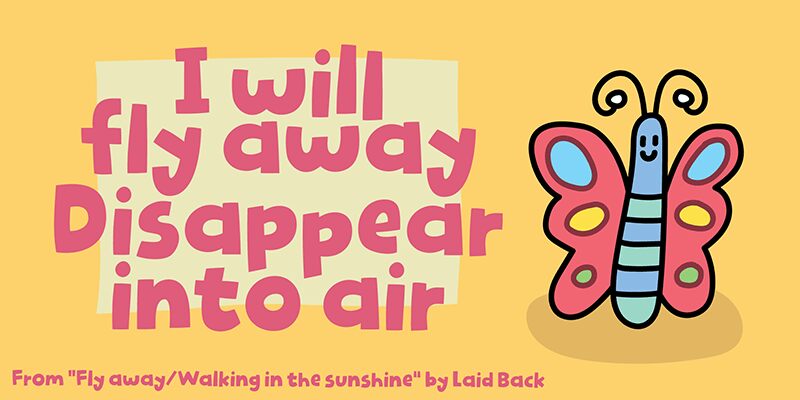
Spunky Piano DEMO
Spunky Piano font, by Pizzadude, is a cartoon display font with a bold weight. Its whimsical and retro-inspired design bursts with personality. This expressive font carries a friendly vibe that also offers an element of surprise through every word.
It can be used on posters, banners, T-shirt designs, children’s books covers and titles, posts and stories on social media platforms, games’ visual content or apps’ settings to add the mood needed. The free display font suits album covers or concert tour announcements as well.